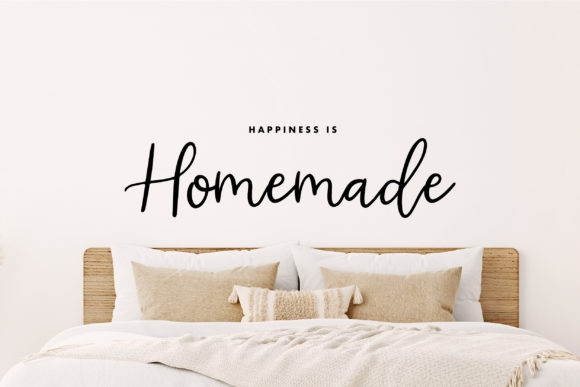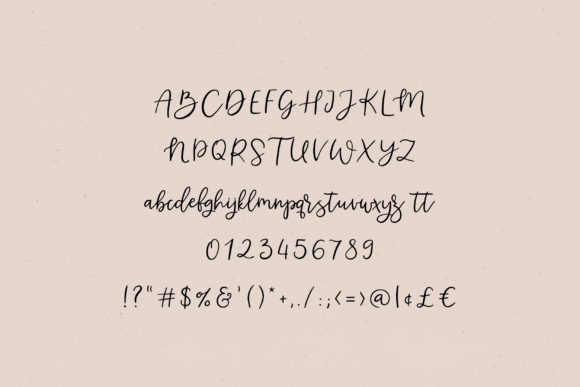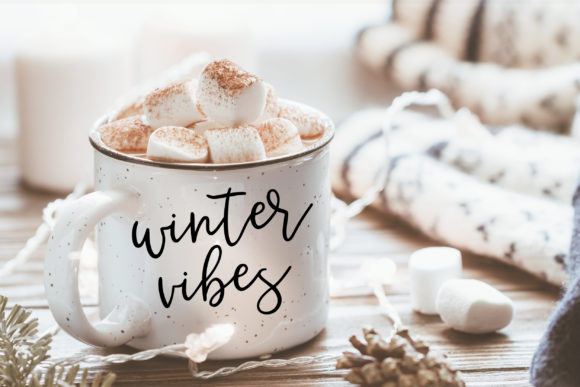
About Melony Font
Melony is an elegant script font, that features a very delicate and classy look. Not too thin and not too thick, balanced and varied, this font was designed to enhance the beauty of your projects.